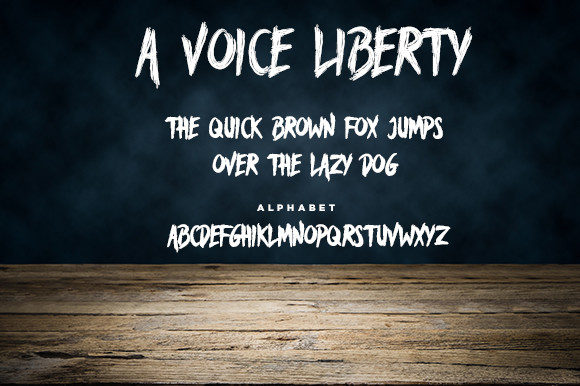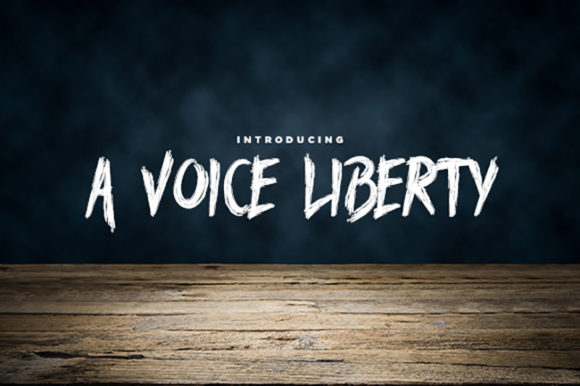
Introduction to A Voice Liberty Font
A Voice Liberty is an amazing brushed display font.
Itโs perfect for logos, branding, and much more No matter the topic, this font will be an incredible asset to your fontsโ library, as it has the potential to elevate any creation.
Key Features of A Voice Liberty Font
Why Choose A Voice Liberty Font?
A Voice Liberty Font offers exceptional quality and versatility, making it a valuable addition to your design toolkit. Whether you’re creating for personal projects or commercial use, A Voice Liberty Font delivers professional results.